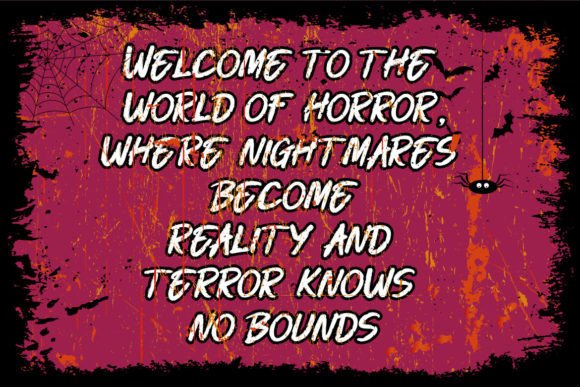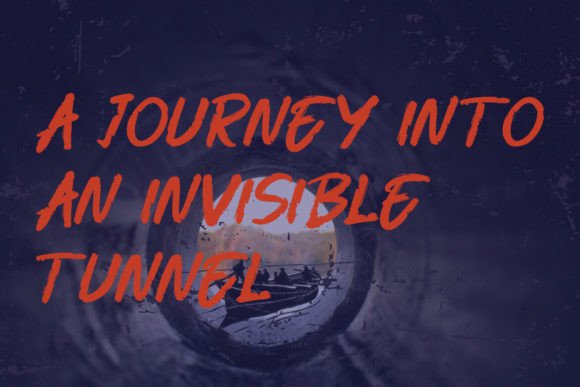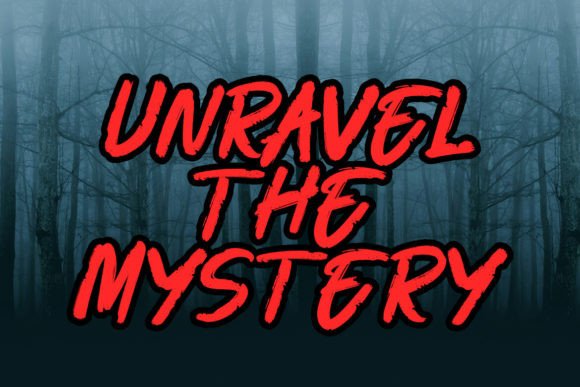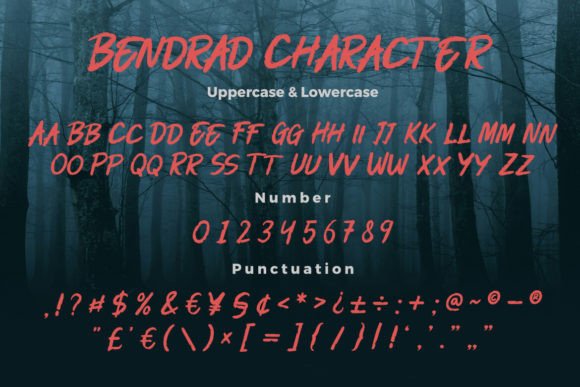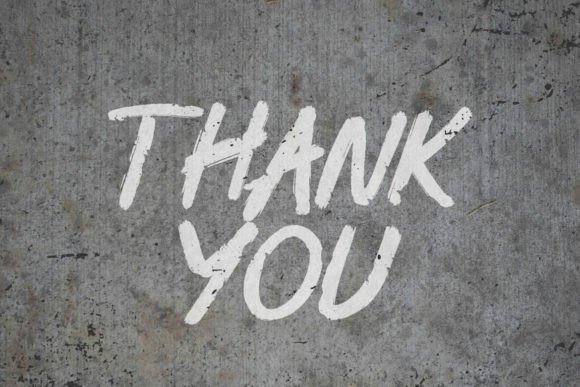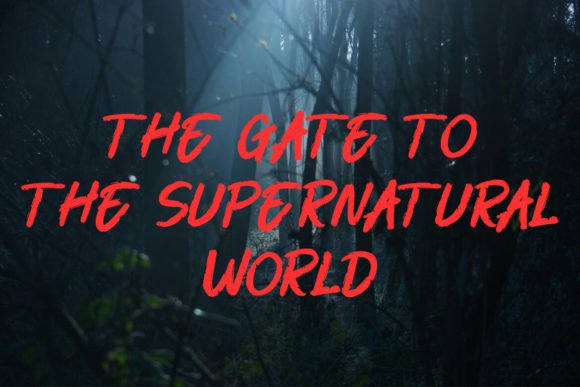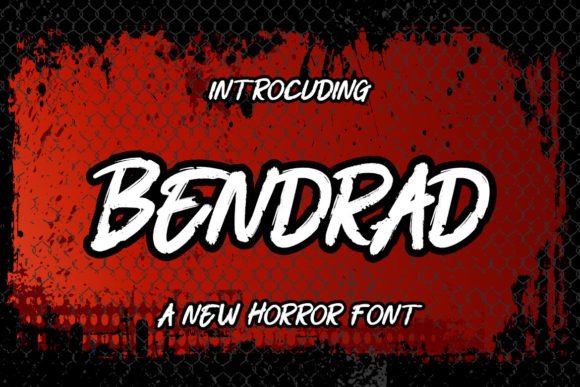
Bendrad Font: Unleash the Horror in Your Designs
In the world of typography, fonts play a crucial role in conveying the tone and atmosphere of a design. For designers and crafters looking to add a touch of horror to their projects, Bendrad Font is the perfect choice. This new horror font is designed to give a creepy and unsettling look to your text, making it ideal for spooky designs, Halloween posters, or any project that needs a chilling atmosphere.
The Unique Features of Bendrad Font
Bendrad Font boasts sharp, jagged edges and eerie, distorted letters that are sure to send shivers down the spine. Its unique features include:
- Sharp, jagged edges: The font’s edges are rough and uneven, giving it a handmade, eerie feel.
- Eerie, distorted letters: Each letter is carefully crafted to create a sense of unease and discomfort.
- Creepy texture: The font has a rough, worn-out texture that adds to its horror appeal.
Perfect for Spooky Designs
Bendrad Font is perfect for designers and crafters who want to create spooky designs that will leave a lasting impression. Whether you’re working on a Halloween poster, a horror movie title, or a creepy logo, this font is sure to deliver. Its versatility allows you to use it for a wide range of projects, from:
- Halloween posters and flyers: Create eye-catching posters and flyers that will grab attention and set the tone for a spooky event.
- Horror movie titles and taglines: Add a touch of horror to your movie titles and taglines, making them more eerie and unsettling.
- Creeptastic logos and branding: Create a logo that will leave a lasting impression on your clients and customers.
Why Choose Bendrad Font?
With so many fonts available, why choose Bendrad Font? Here are just a few reasons:
- Unique and original: Bendrad Font is a one-of-a-kind font that will set your designs apart from the rest.
- High-quality design: The font is carefully crafted to ensure high-quality design and legibility.
Tips for Using Bendrad Font
To get the most out of Bendrad Font, here are a few tips:
- Use it sparingly: While Bendrad Font is perfect for creating a spooky atmosphere, it can be overwhelming if used excessively. Use it sparingly to create a greater impact.
- Experiment with colors: Bendrad Font looks great in bold, bright colors. Experiment with different colors to create a unique look.
- Pair it with other fonts: Bendrad Font can be paired with other fonts to create a unique and interesting contrast.
Bendrad Font is a unique and original horror font that is perfect for designers and crafters looking to add a touch of horror to their projects. Its sharp, jagged edges and eerie, distorted letters make it ideal for spooky designs, Halloween posters, or any project that needs a chilling atmosphere. With its ease of use, high-quality design, and versatility, Bendrad Font is a must-have for any designer or crafter looking to create creepy and unsettling designs.